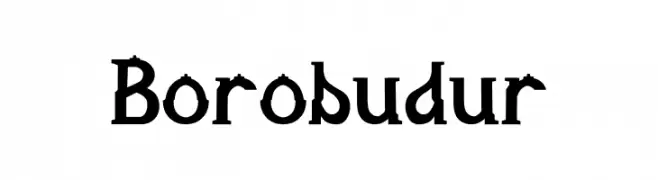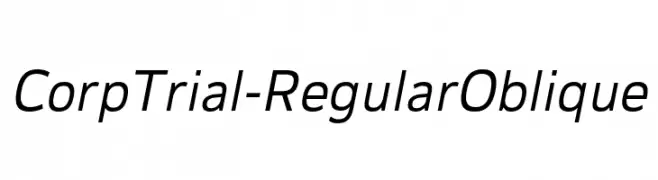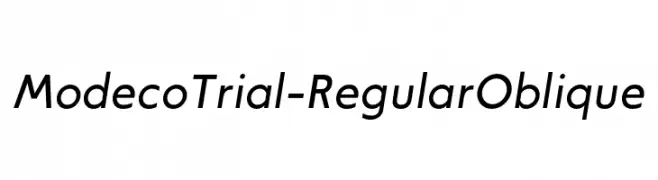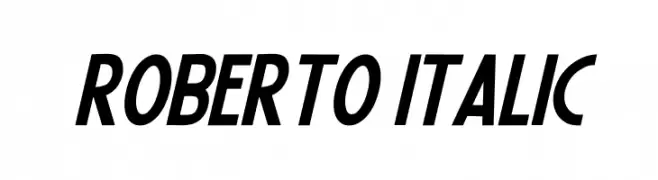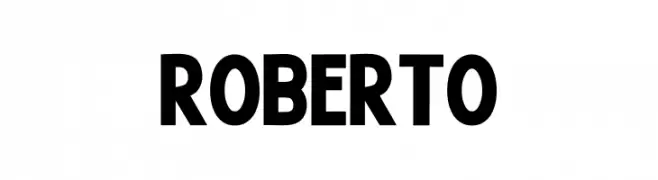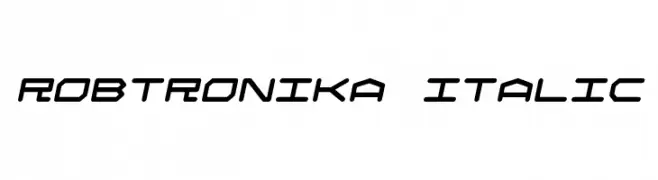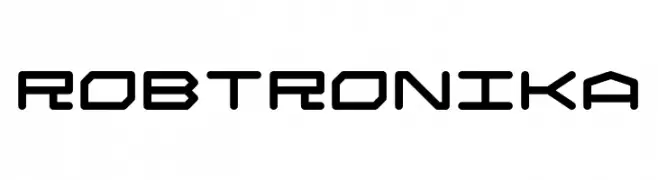
A bold, italicized font with a futuristic and geometric design.
A futuristic, italicized font with a sleek, tech-inspired design.
A bold, futuristic font with geometric shapes and a modern, digital feel.
A modern, oblique sans-serif font with a sleek and dynamic style.
A modern, oblique sans-serif font with clean lines and a professional appearance.
A futuristic, italic font with geometric shapes and rounded corners.
A futuristic, geometric font with consistent stroke width and angular shapes.
A bold, geometric sans-serif font with strong, uniform strokes.
A modern italic font with bold, dynamic strokes and a sleek appearance.
A distinctive serif font with angular serifs and a blend of traditional and modern elements.